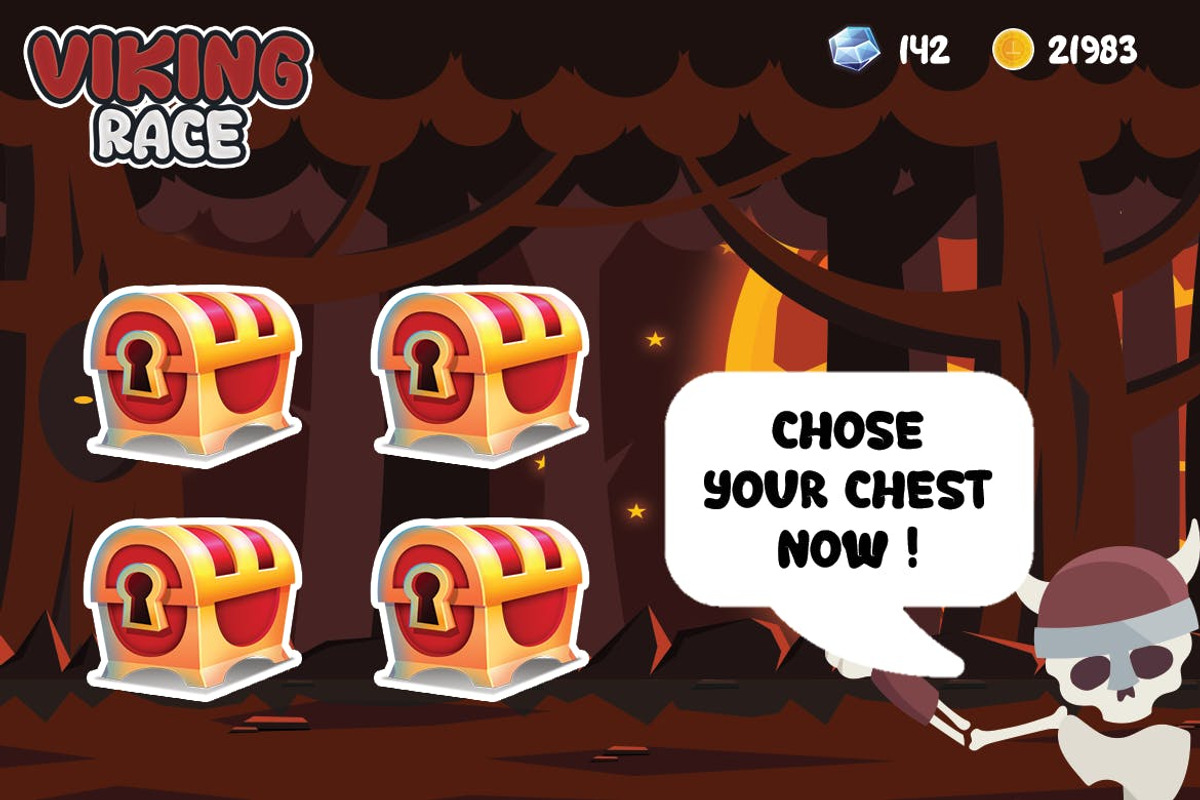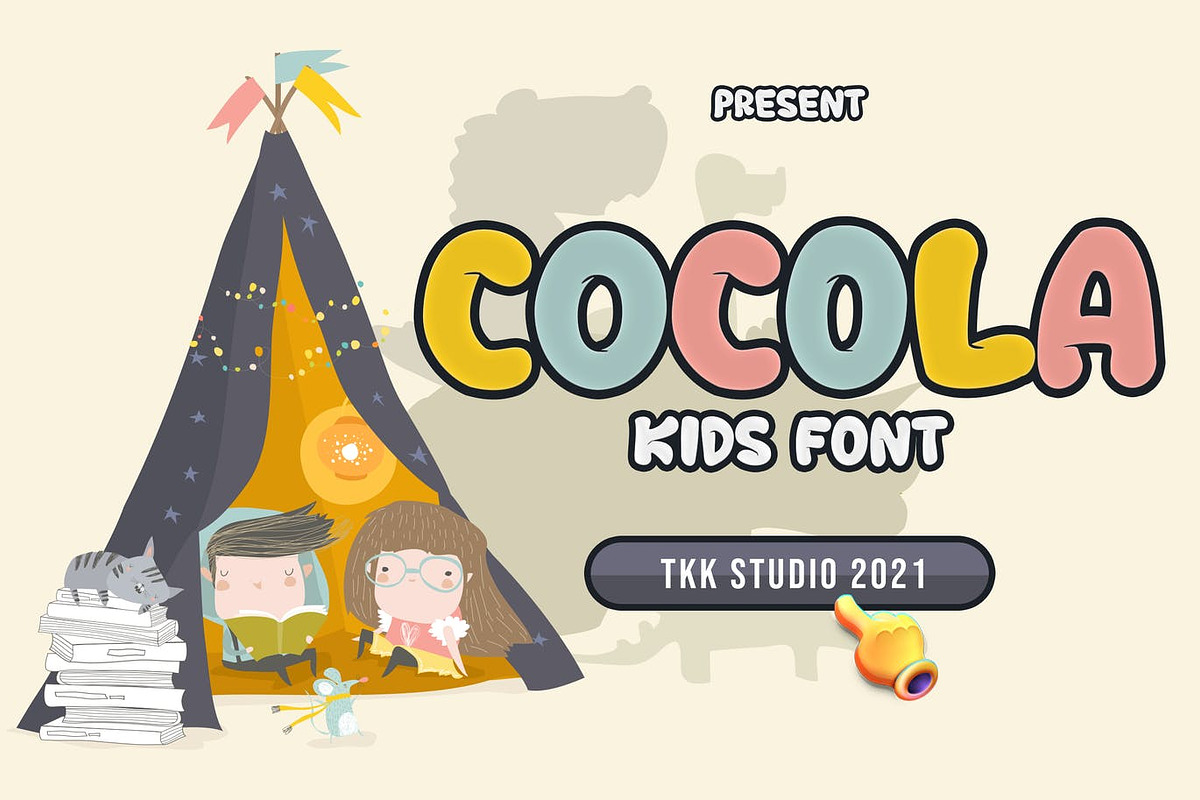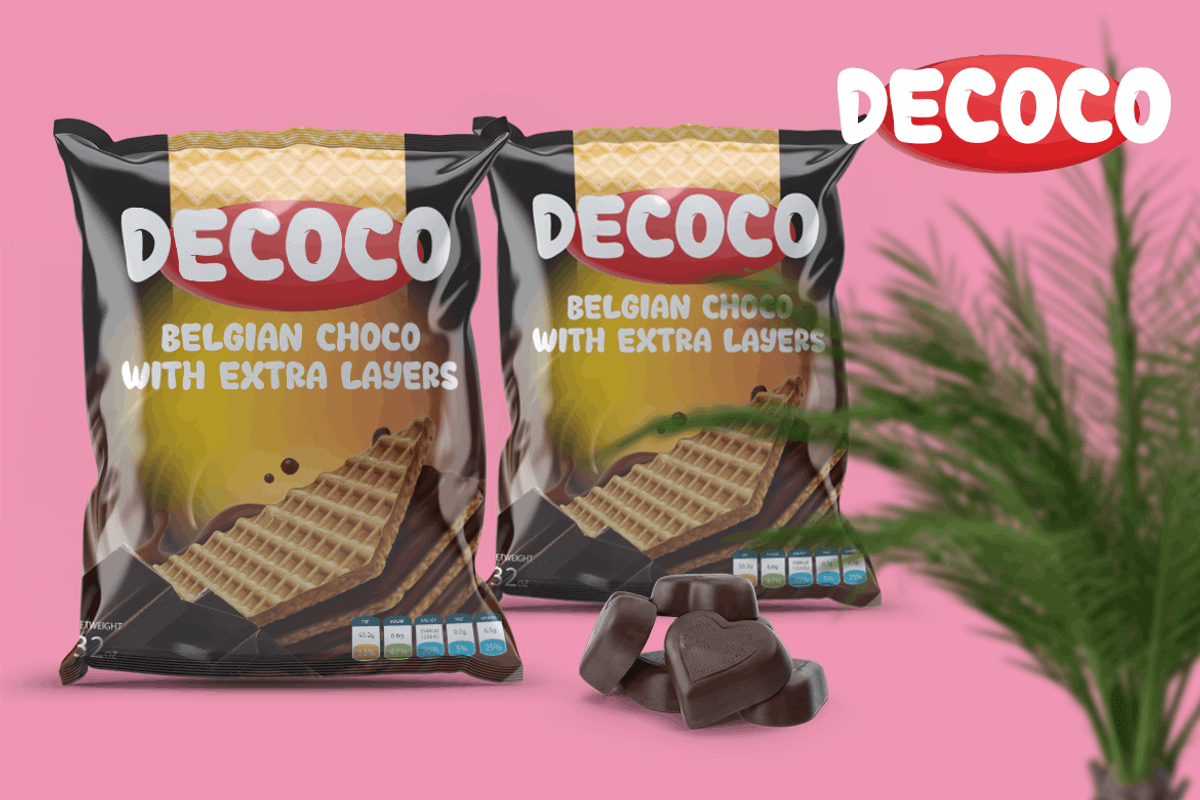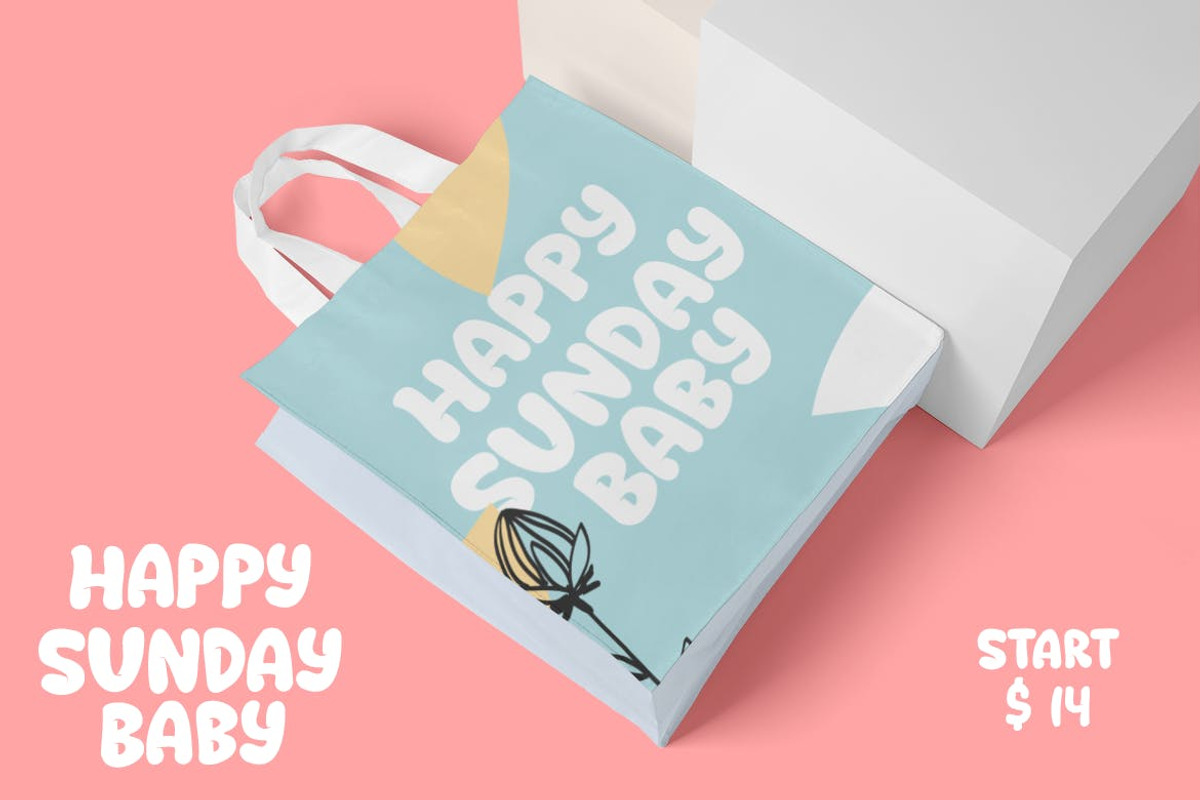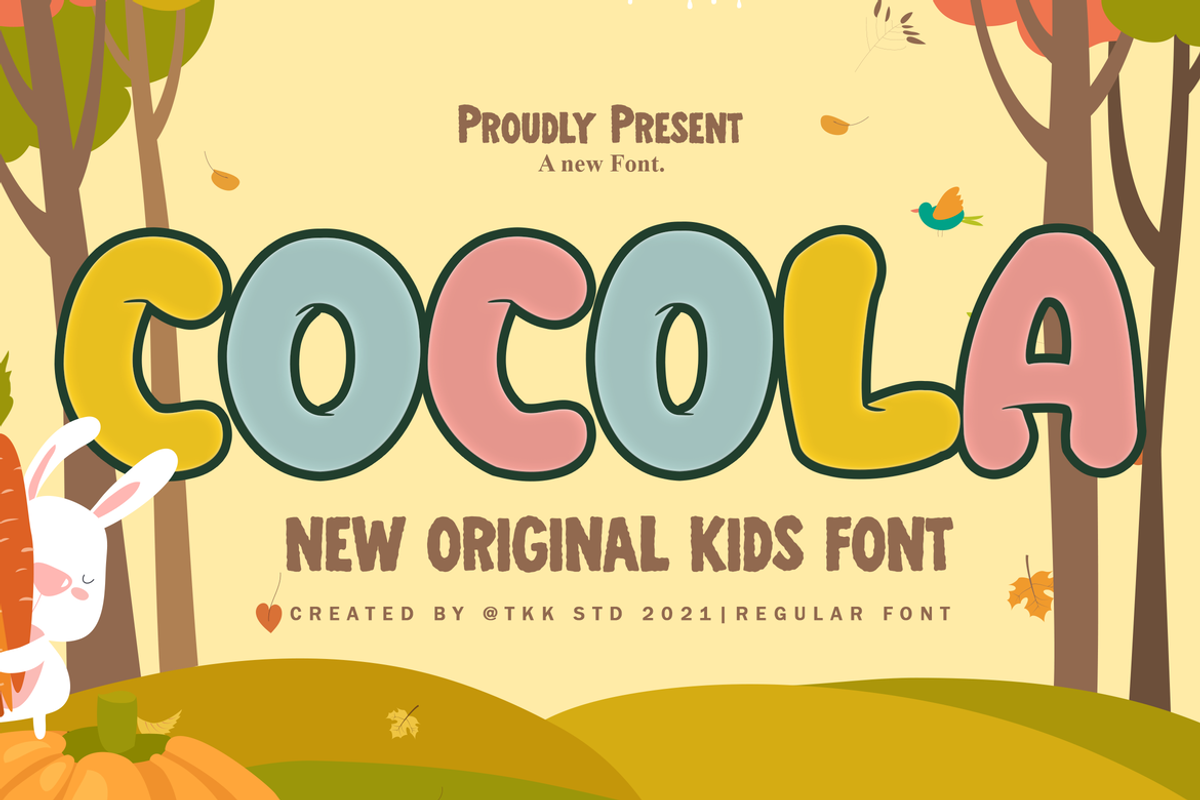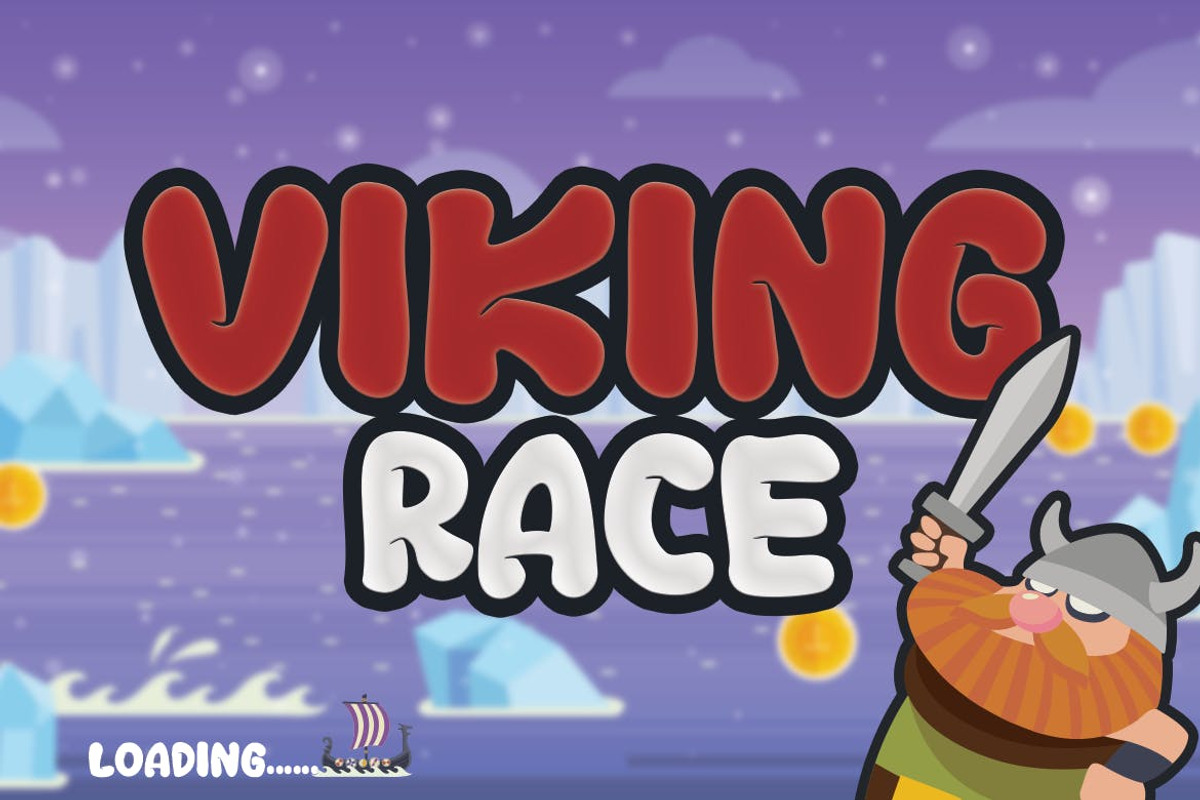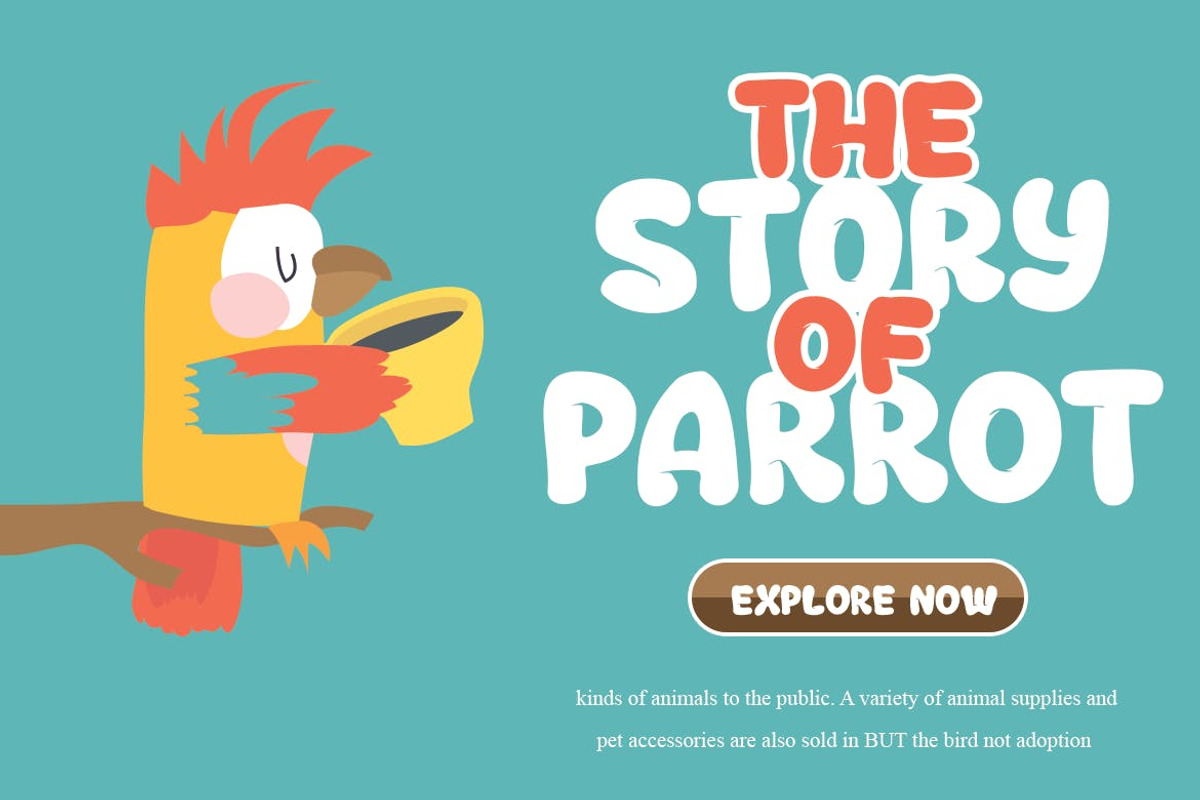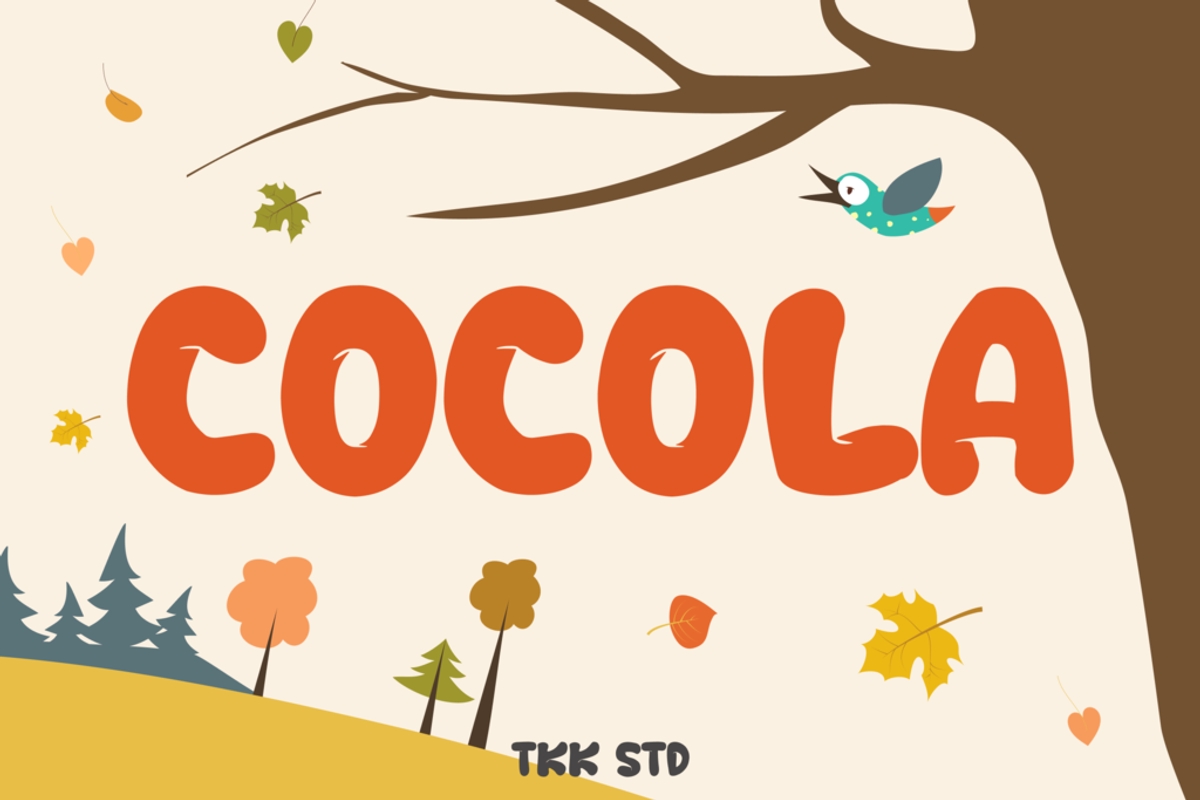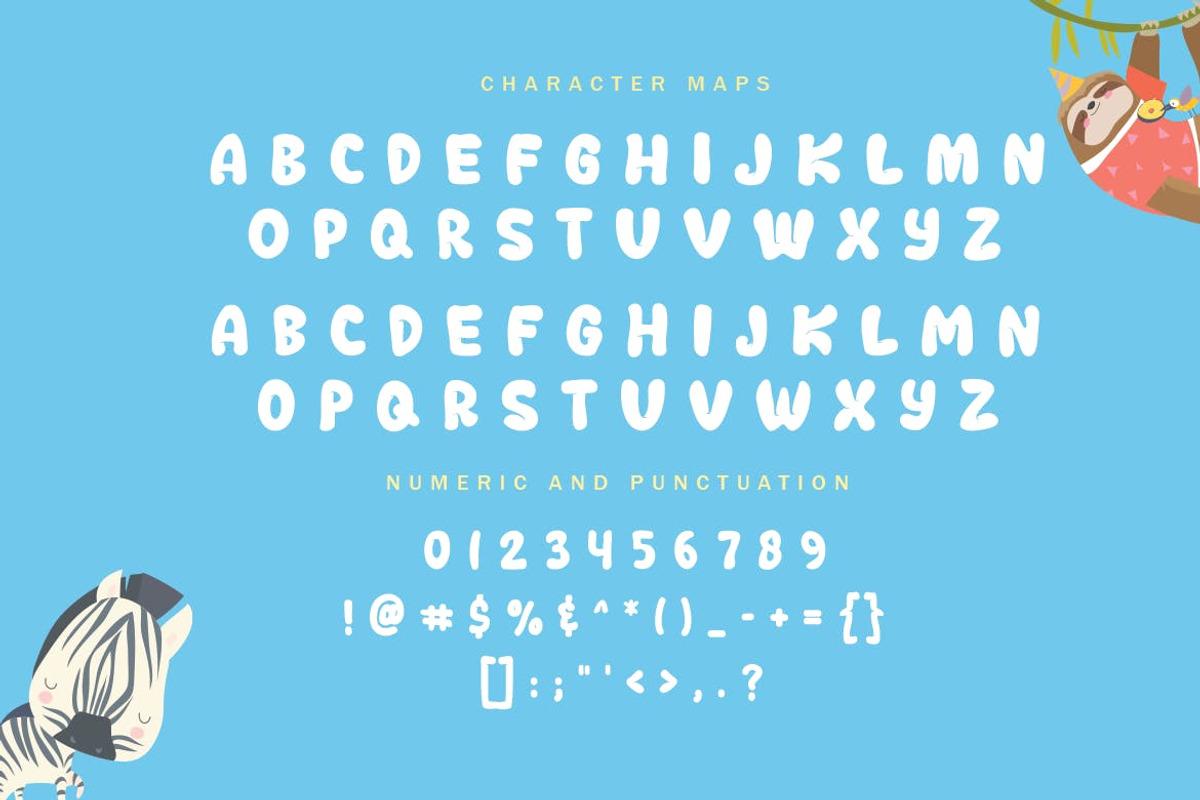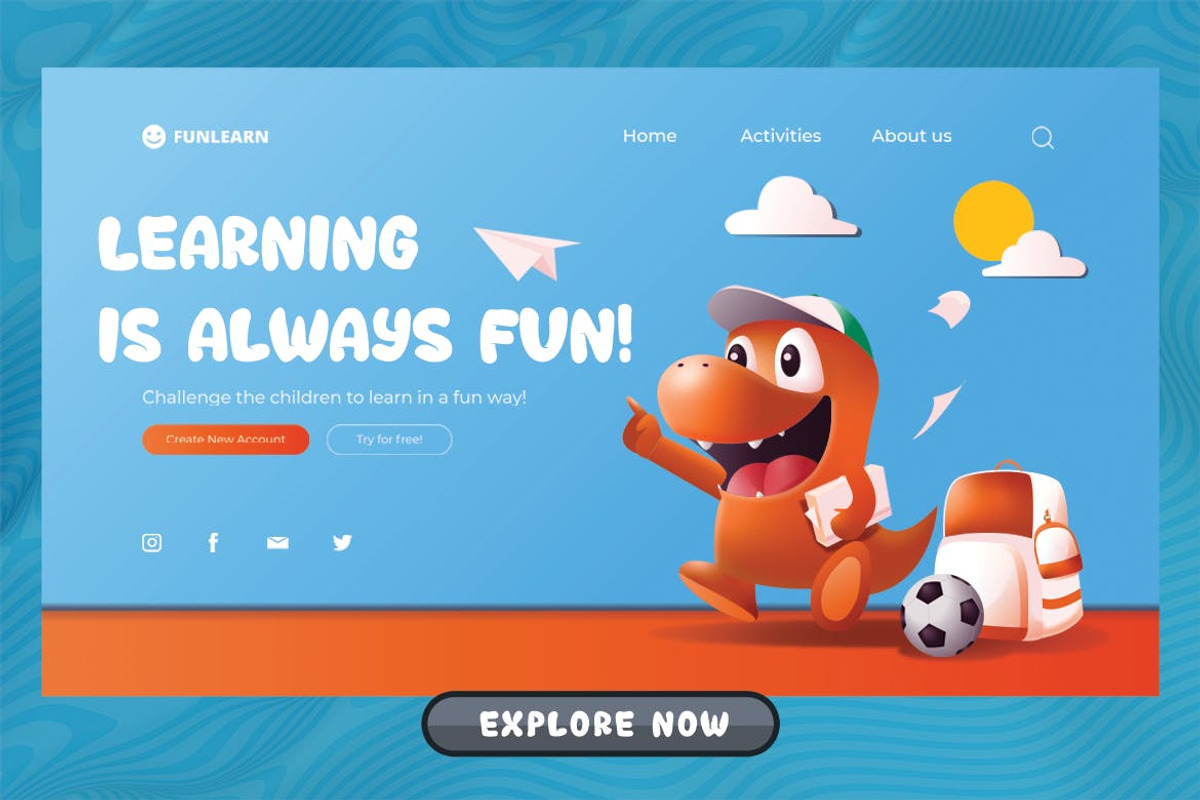
COCOLA - Kids Font
COCOLA kids font is an all caps style gaming font, with funny and happy feelings all around it, and it’s a bubble shape font as well...
Suit perfectly for Online Games, poster, movie title, fast food menu, magazine, youtube covers, youtube thumbnails, social media page covers and so on…